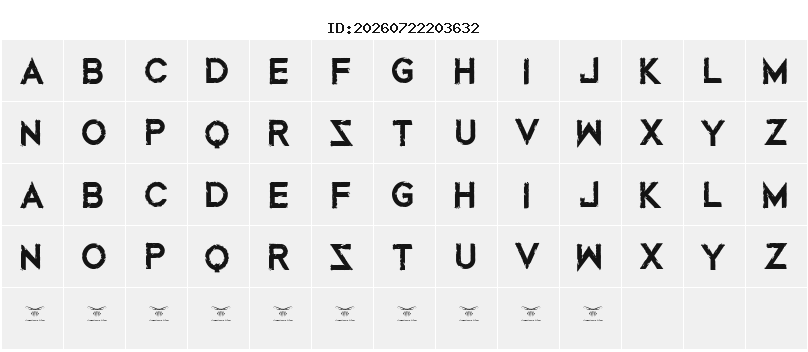
Mustafar Reloaded Preview
• Font Name: Mustafar Reloaded
• Designer: Chris Vile
• Manufacturer: Fonts by Jab-Now
• Description: Mustafar Reloaded is a font by Fonts by Jab-Now, designed by Chris Vile in 2014.
Mustafar Reloaded.ttf is a modern, elegant sans-serif font designed for ultimate readability and visual harmony. Perfect for branding, headlines, web design, and print materials.